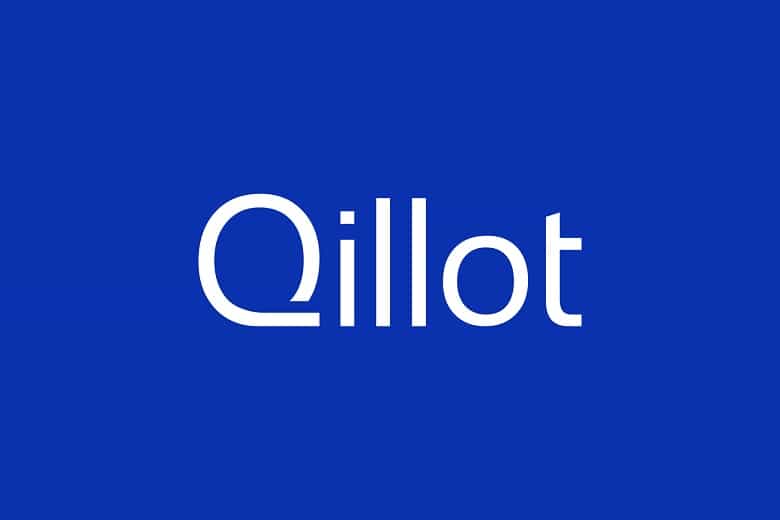
Qillot is a modern and elegant sans-serif font crafted for achieving precise designs suitable for press.< This family has a delicate feel to it and its letterforms are very fine and sharply cut, giving the impression of professionalism. Ideal for magazine-style layouts and editorial design projects, Qillot is characterized by outstanding readability and a sleek look.